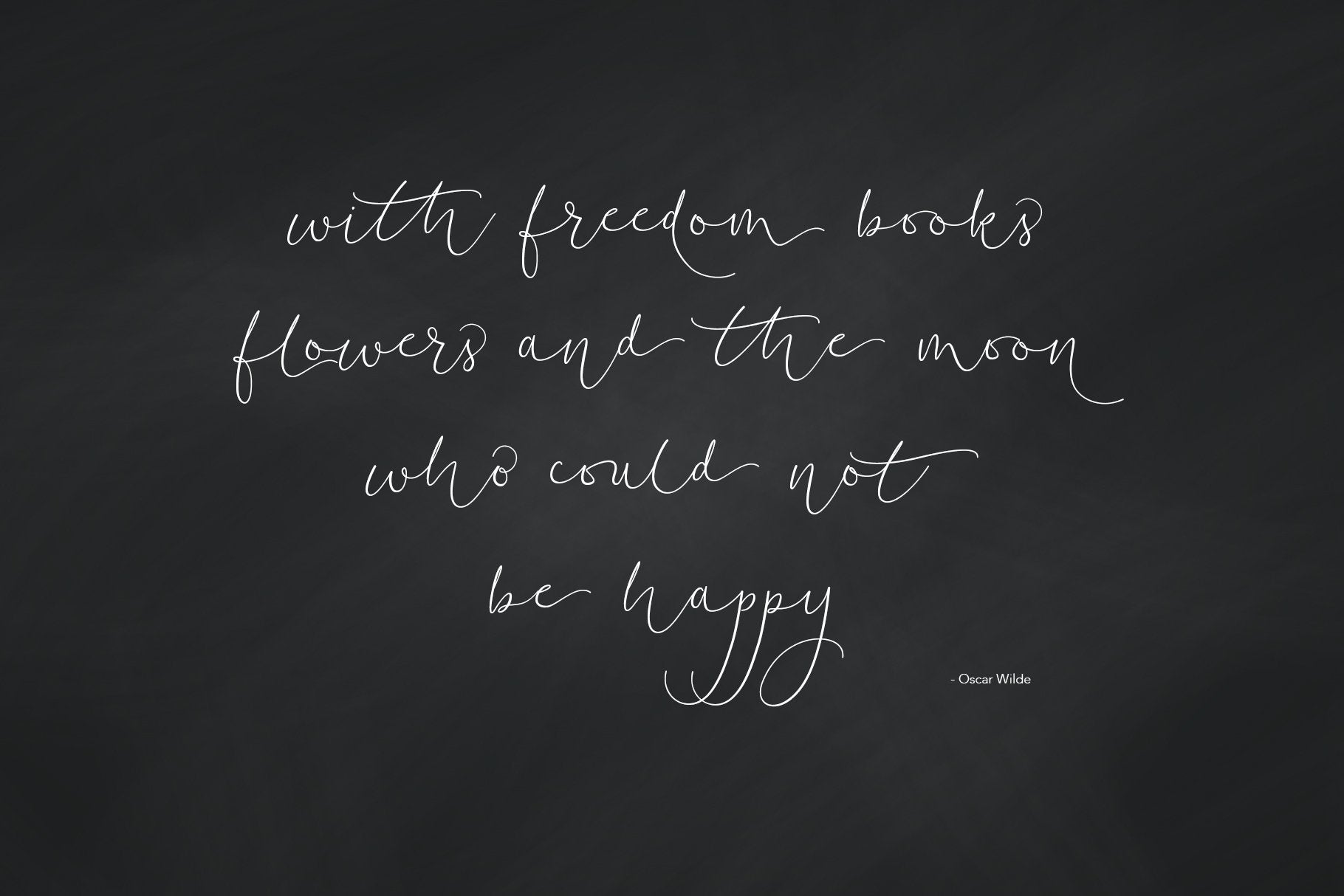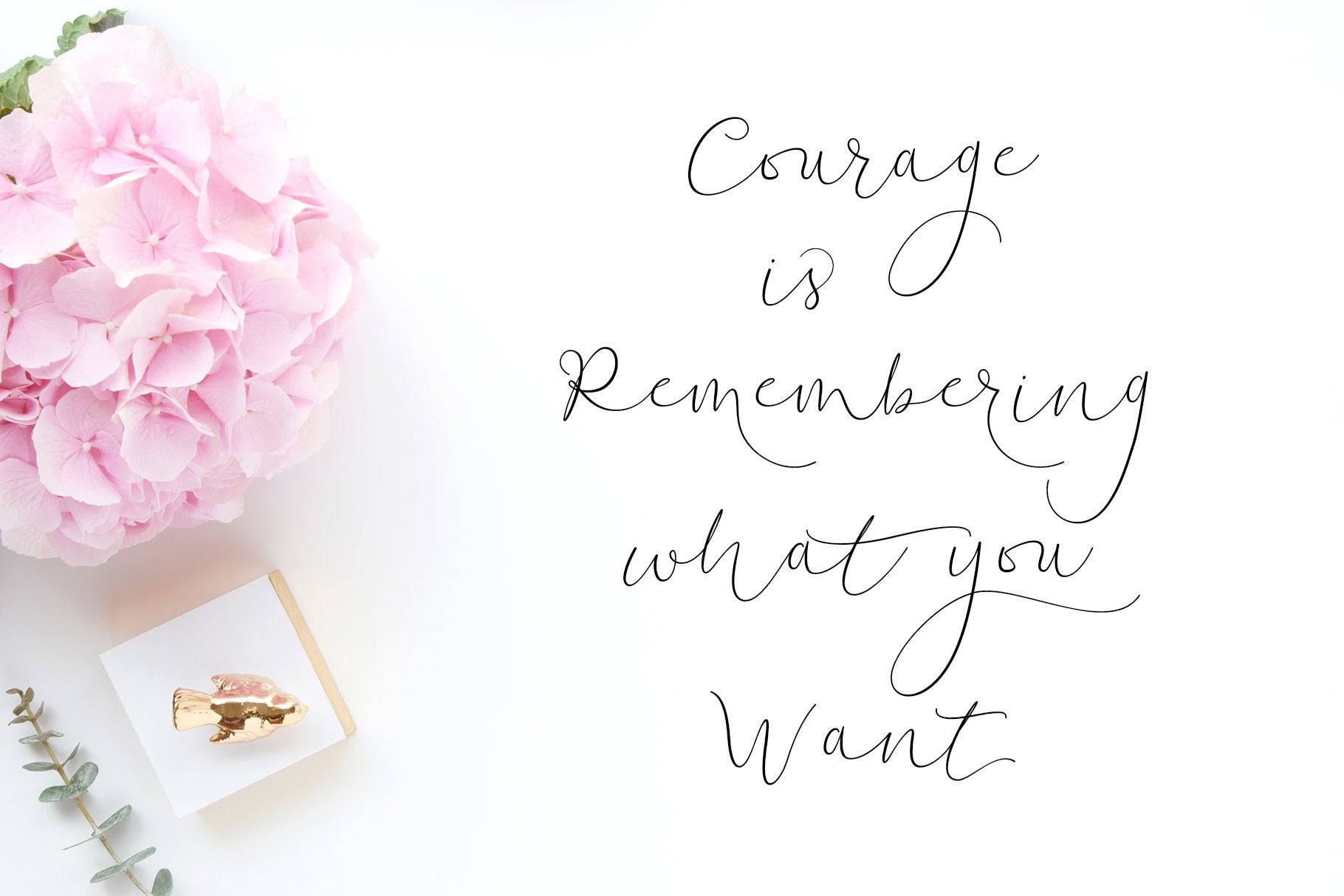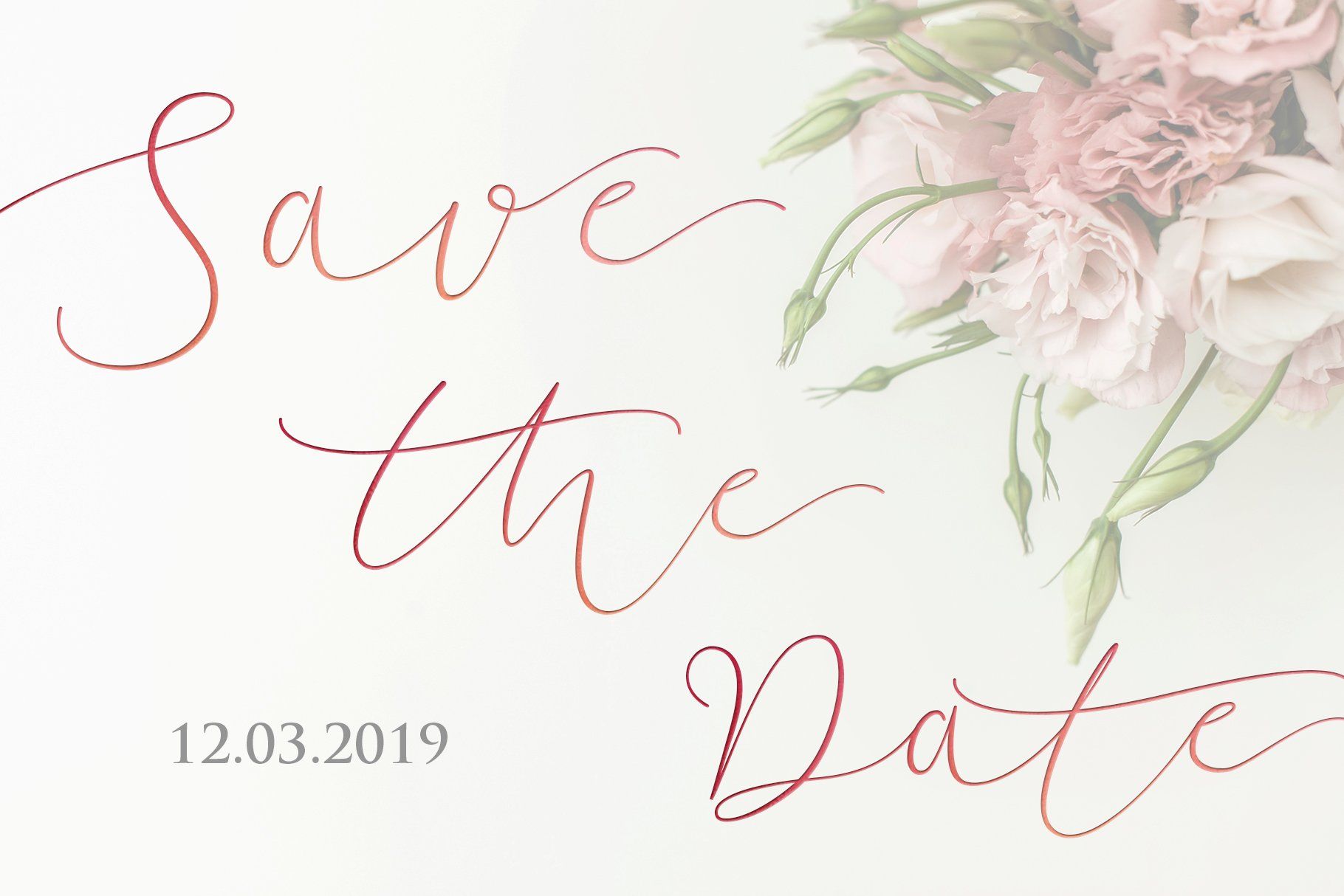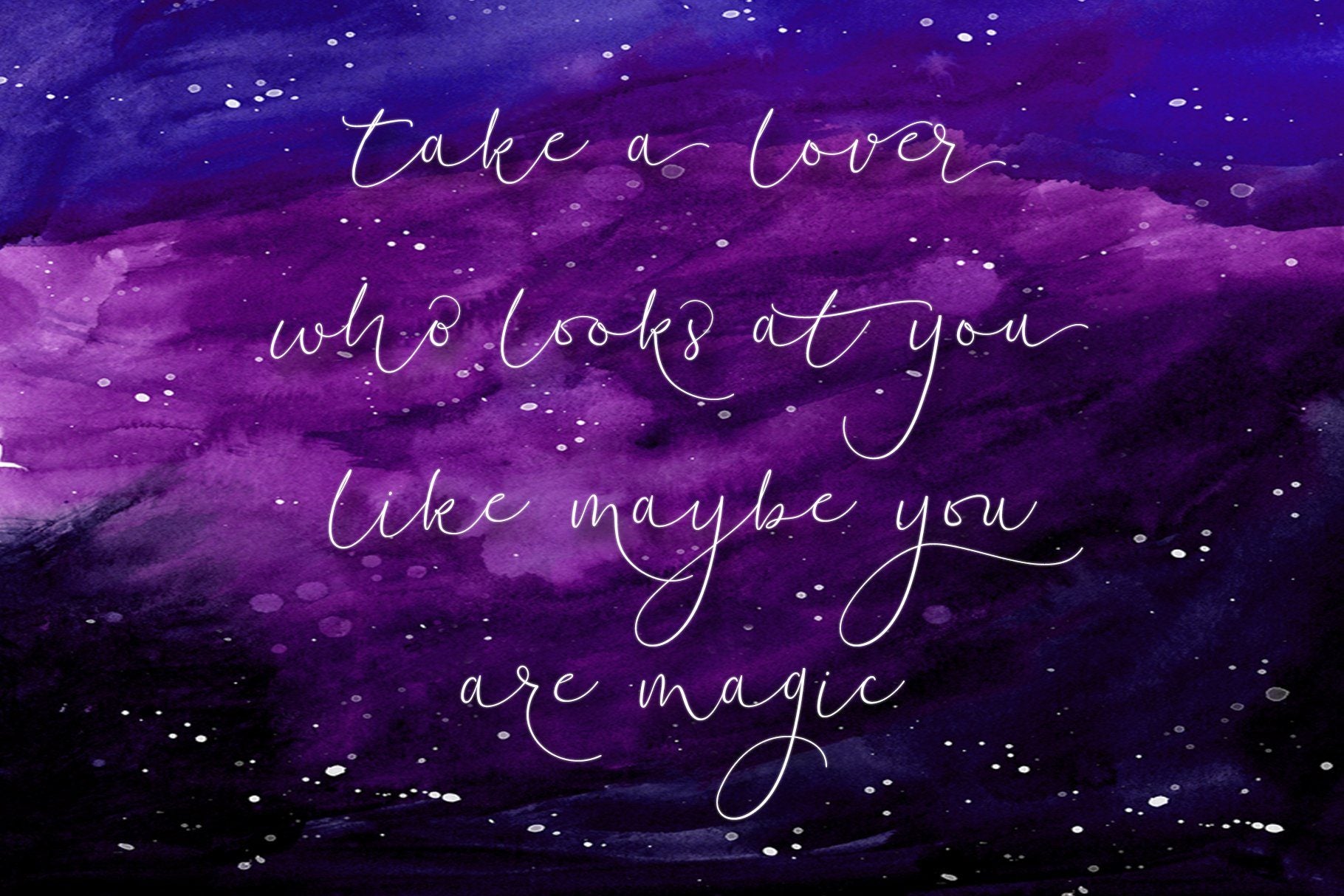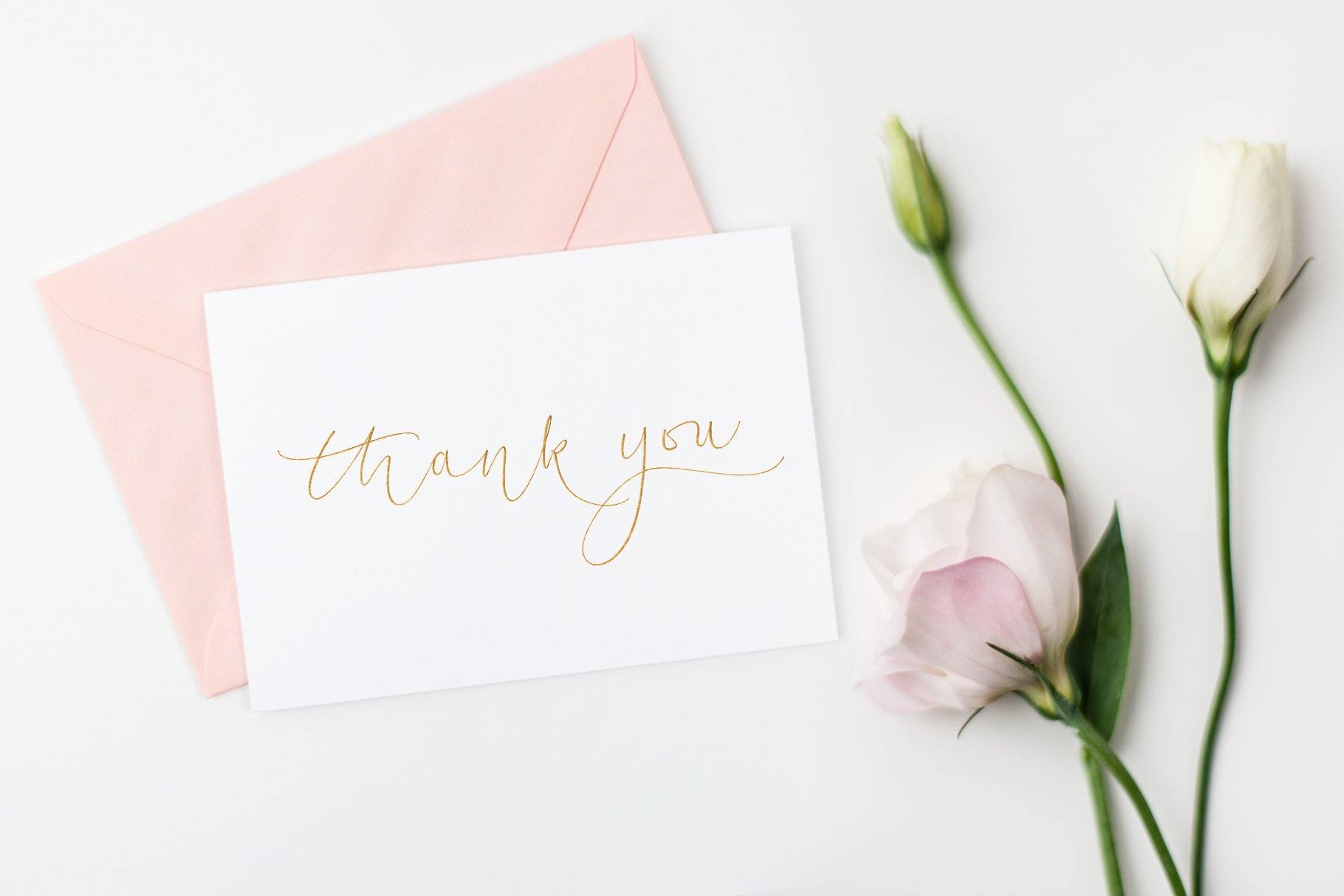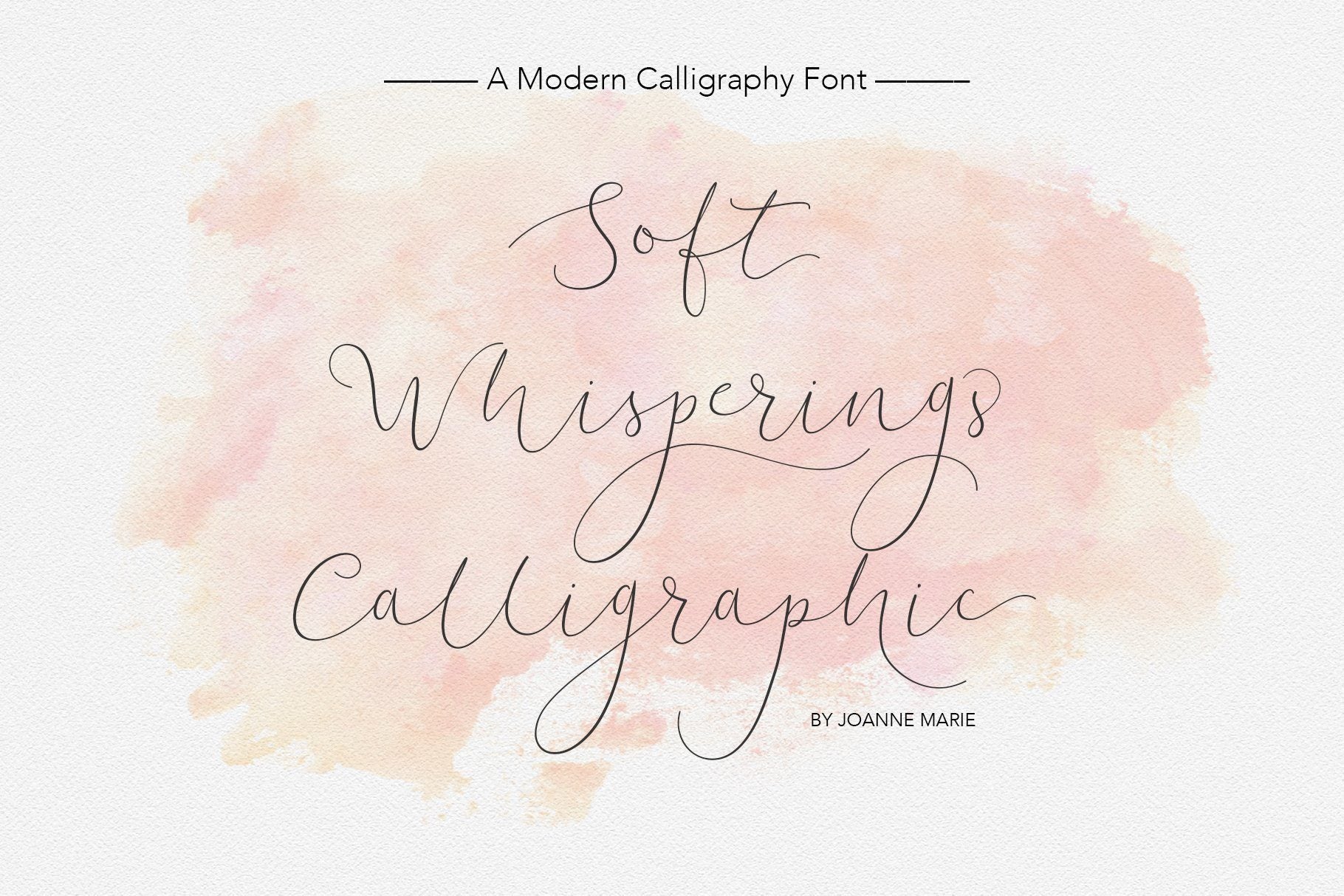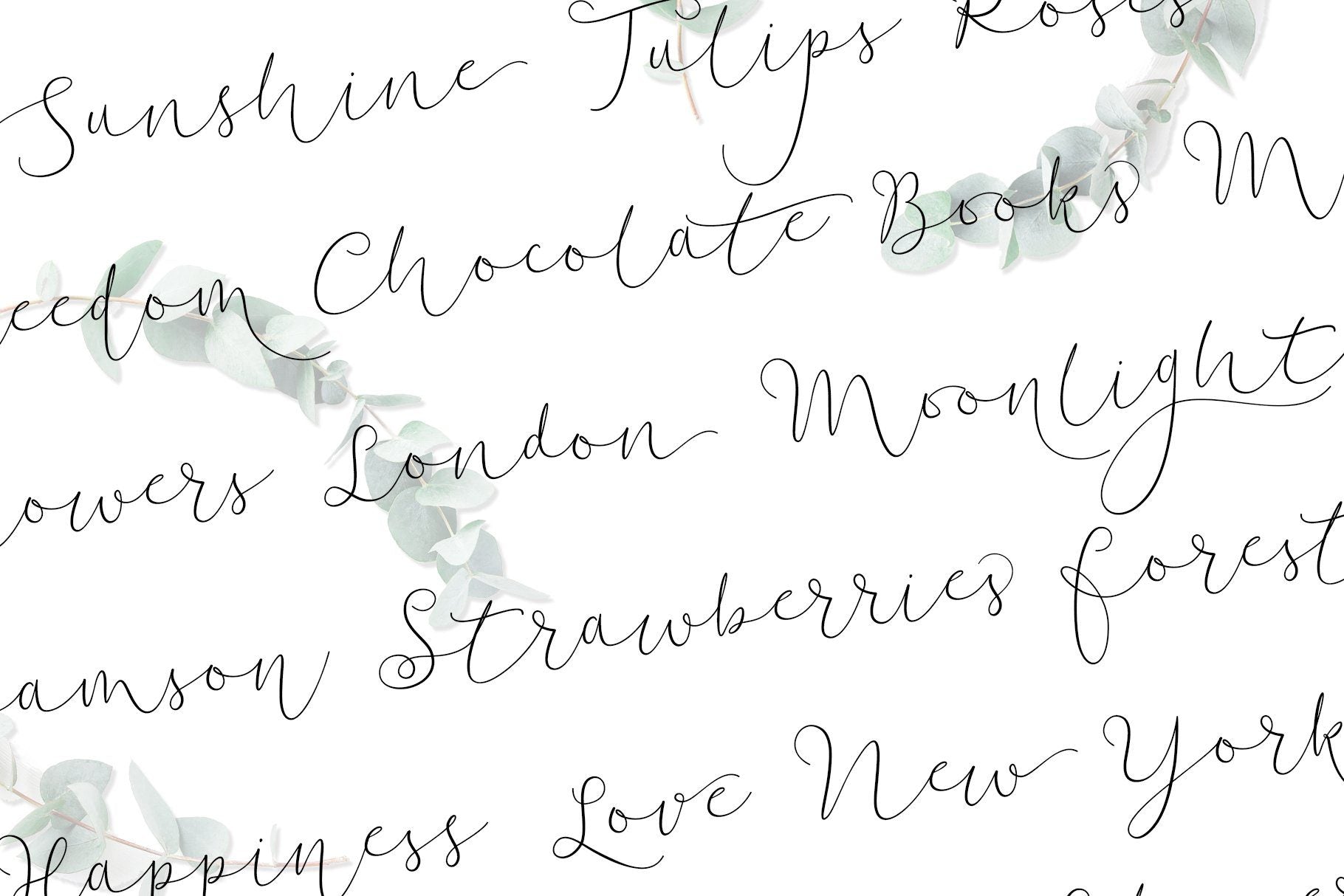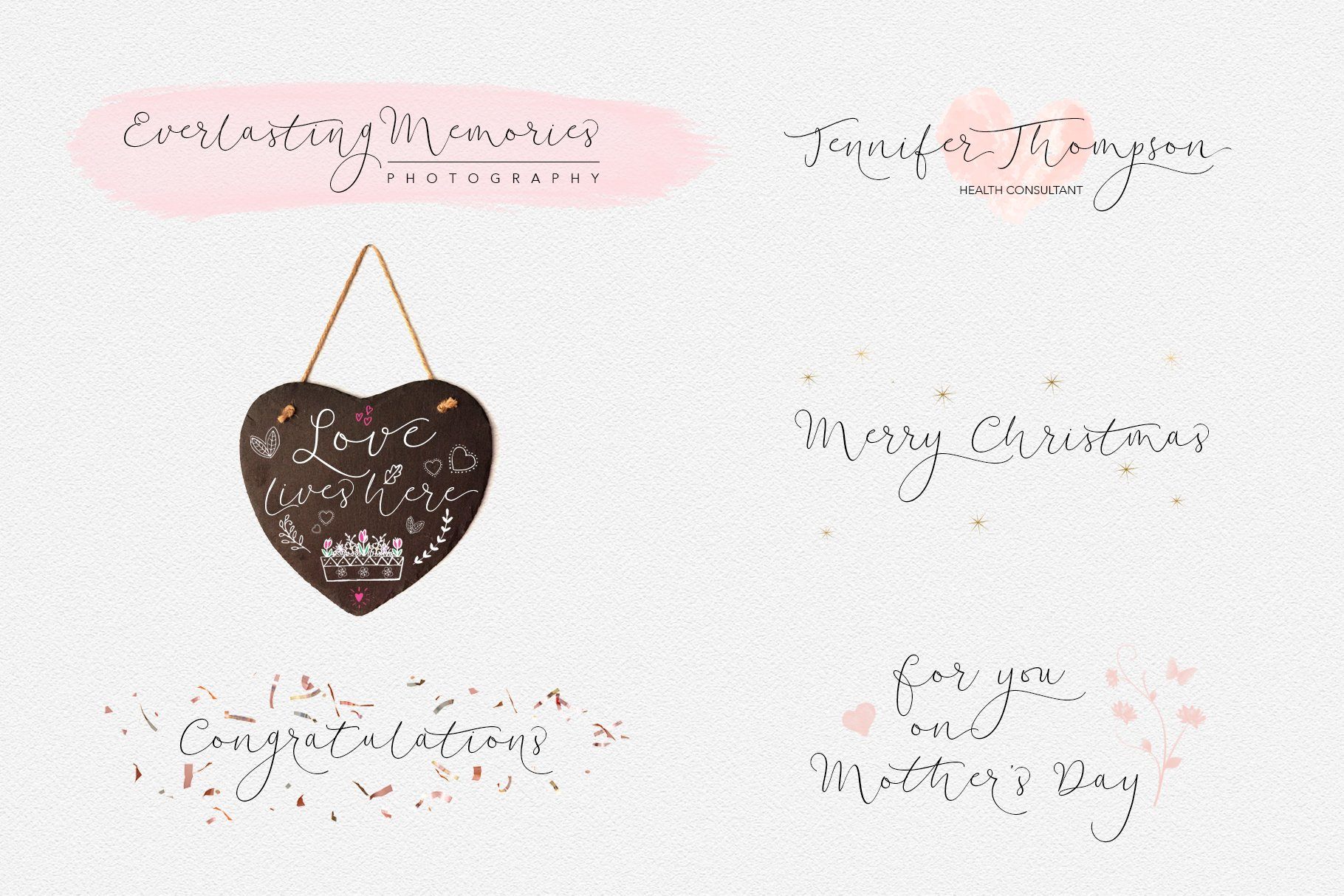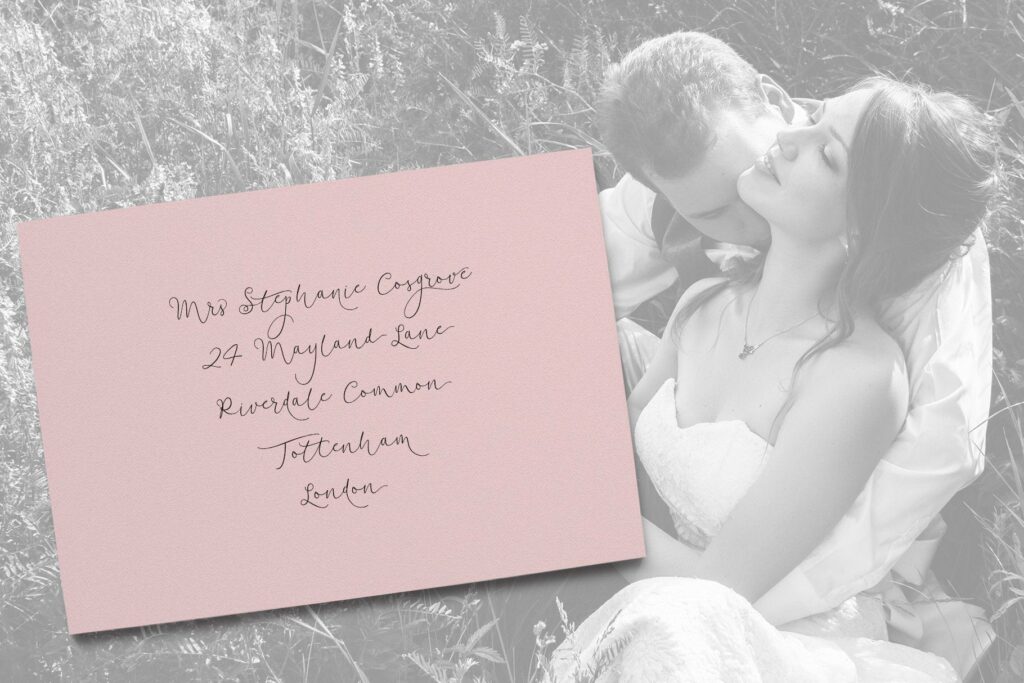
Soft Whisperings Calligraphic Modern Calligraphy Font
About Soft Whisperings Calligraphic Modern Calligraphy Font
Introducing Soft Whisperings Calligraphic – A beautifully flowing modern calligraphy font. This delicate, modern script font is full of romance and elegance. It’s perfect for wedding stationery, Save The Date and special occasion cards. Soft Whisperings has a lovely handwritten feel to it so it’s also great for logos, signatures, taglines and calligraphic projects. There are plenty of alternate glyphs and ligatures ! International Language Support Soft Whisperings Calligraphic supports 219 latin based languages , which are spoken in different 212 countries. The download includes the following files: Soft Whisperings Calligraphic .otf Soft Whisperings Calligraphic .ttf The fonts are PUA encoded which means that you don’t need any special software to be able to use the alternates and Ligatures. Well, that’s about it!  Enjoy and please contact me if you have any questions. Jo